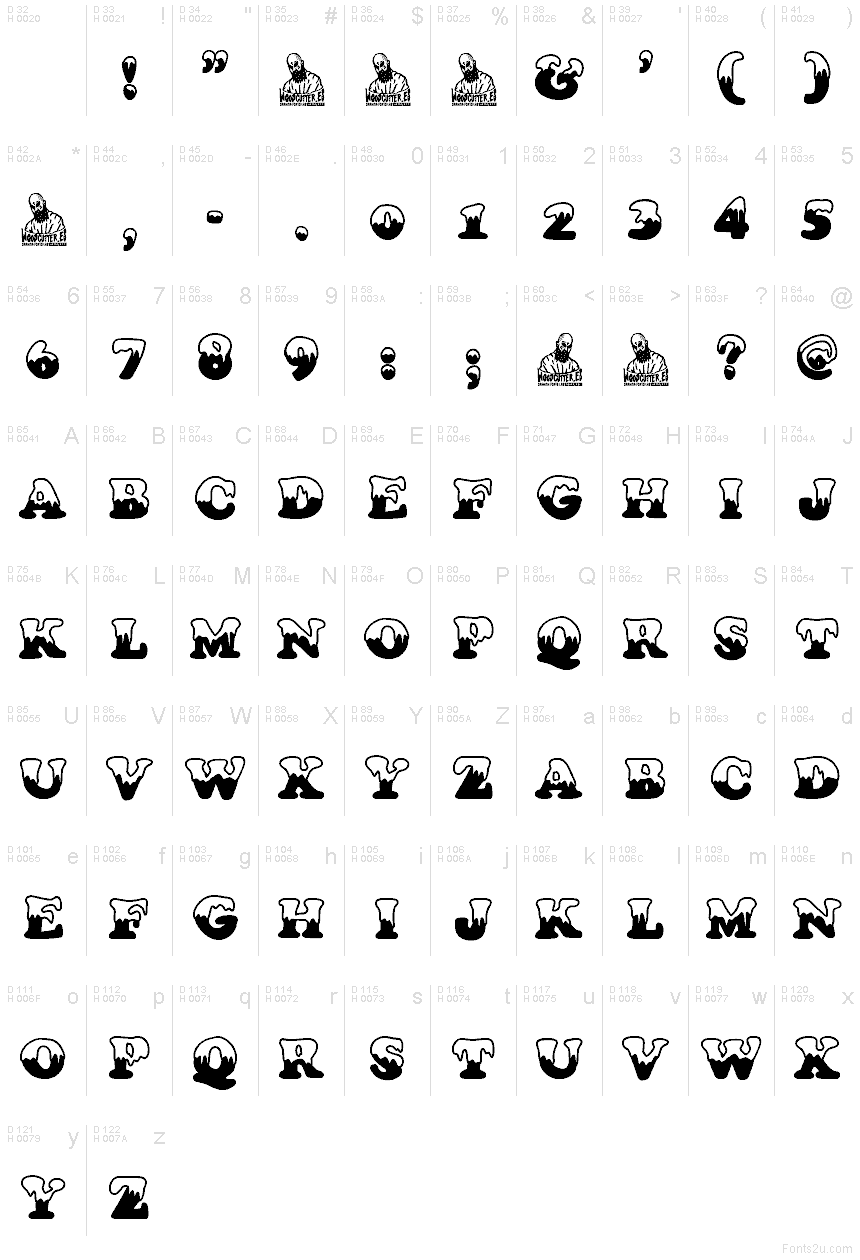
Lluvia Blanca
Lluvia Blanca font by Woodcutter is a free decorative display typeface that looks as if every letter is melting under heavy rain or dripping with thick white paint. Chunky caps swell at the top and dissolve into inky, fluid shapes below, giving each word a moody, atmospheric texture. The contrast between the solid upper forms and the liquid bottoms creates an instant sense of motion and decay.
Using Lluvia Blanca, you can push horror covers, Halloween posters, haunted house signage, spooky game logos, metal band artwork, or eerie event flyers into full-on creep mode. This free font works best at large sizes where the dripping detail can really ooze across the page; pair it with a simple sans-serif for supporting text so the drama of Lluvia Blanca stays front and center.